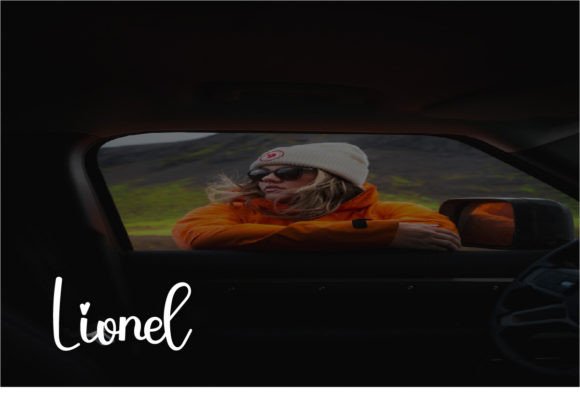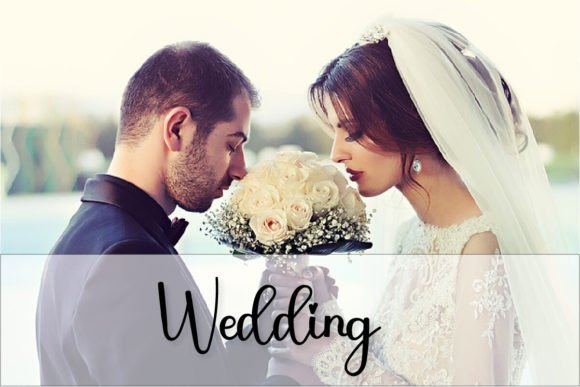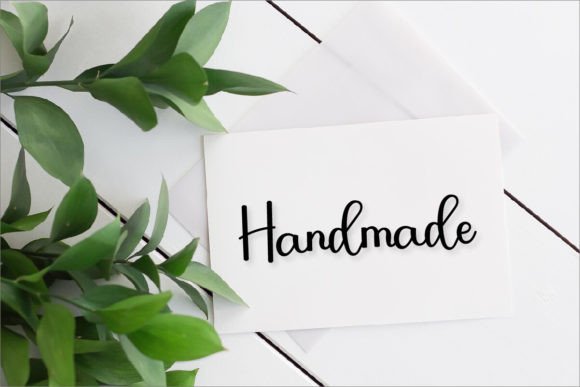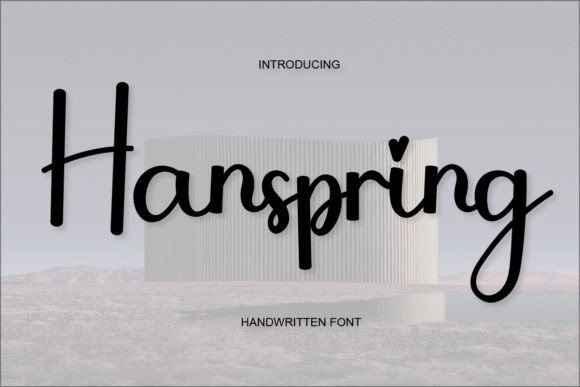
Introduction to Hanspring Font
Hanspring is a stylish and incredibly elegant handwritten font.
It looks stunning on wedding invitations, thank you cards, quotes, greeting cards, logos, business cards, and every other design which needs a handwritten touch .
Key Features of Hanspring Font